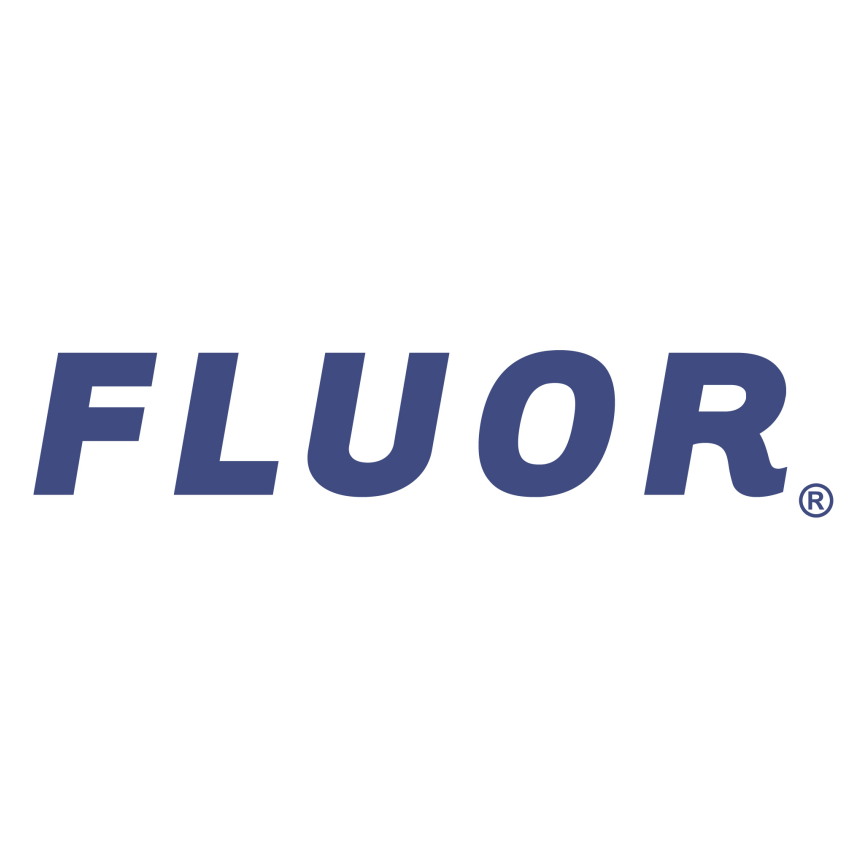
Fluor Logo Font
Fonts in UseFluor Corporation is a global engineering, procurement, construction, and maintenance company that provides services to industries such as energy, chemicals, infrastructure, and more. It is headquartered in Texas, USA.
The wordmark of the company is set in Tarzana Wide Bold Italic, a contemporary sans serif typeface family with eight styles, designed by Zuzana Licko in 1998. You can learn more about it here.